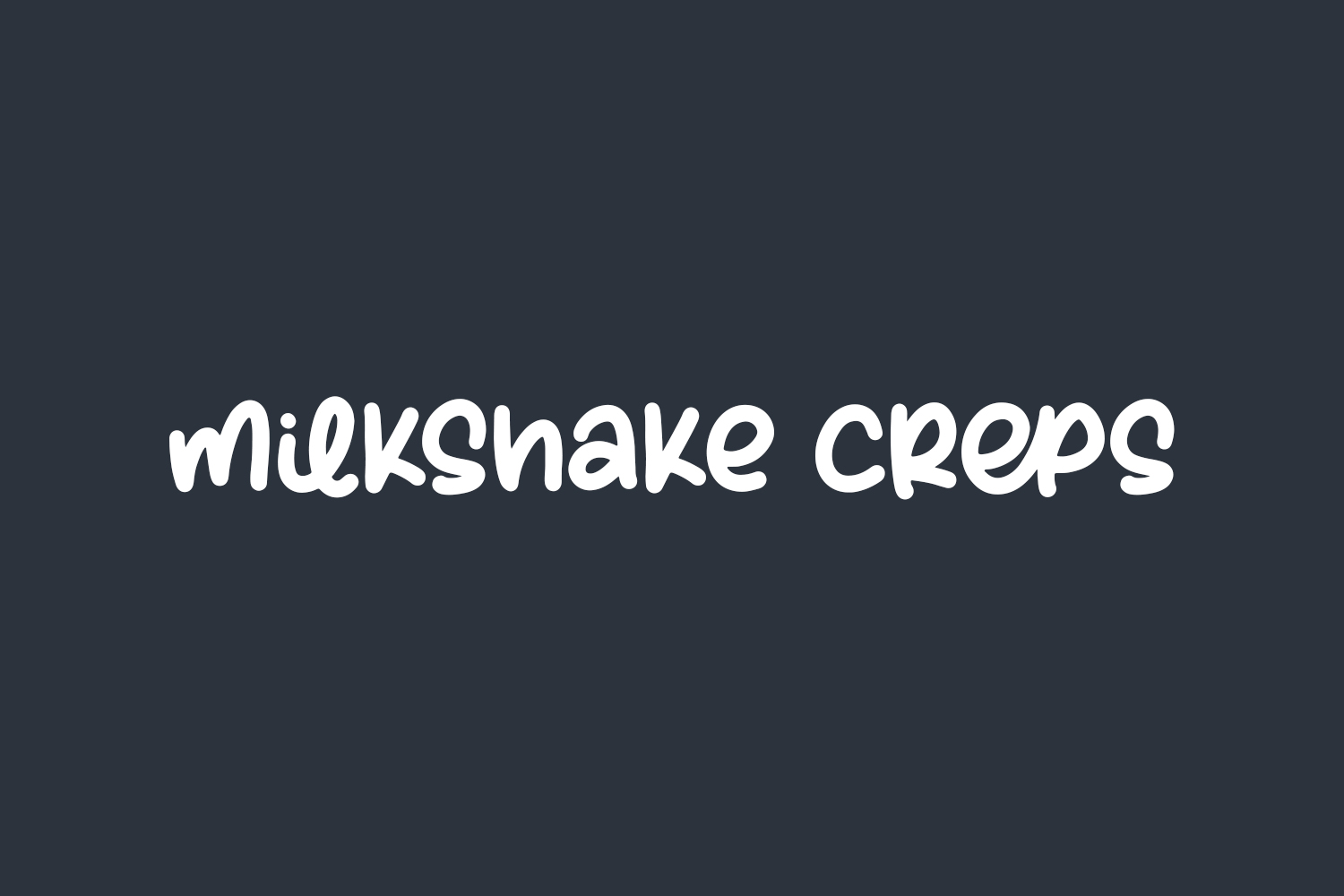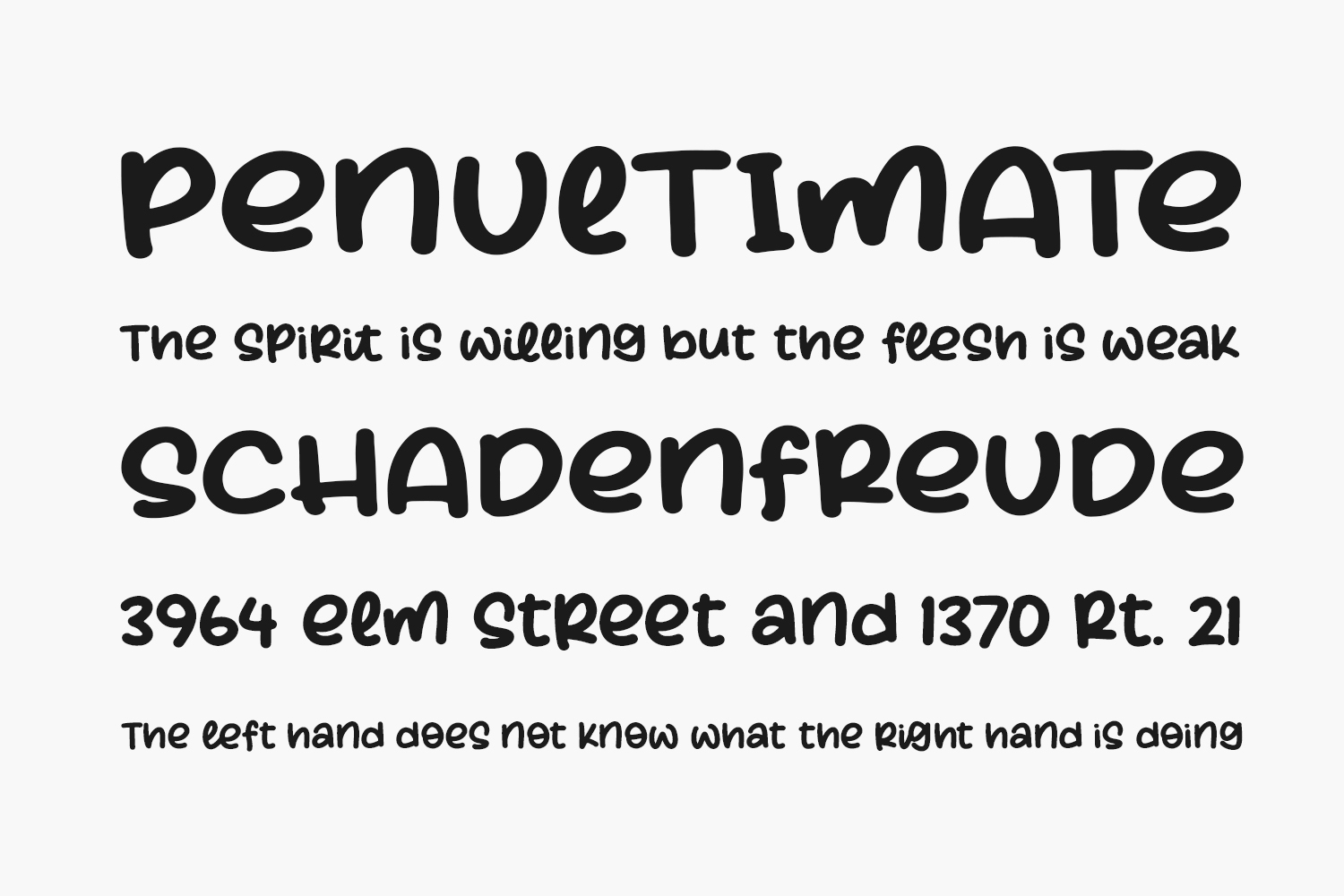
Introducing Milkshake Creps Free Font, a warm and inviting hand-lettered typeface exuding charm and flair! Tailor-made for quotes, headings, logos, branding, merchandise, and websites, it infuses your projects with a delightful touch of personality and style. Download the font for free if you need it for personal use or purchase the full version for commercial use.